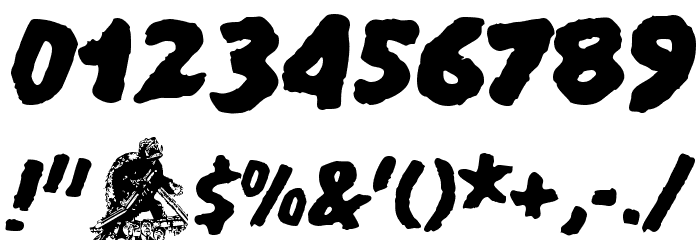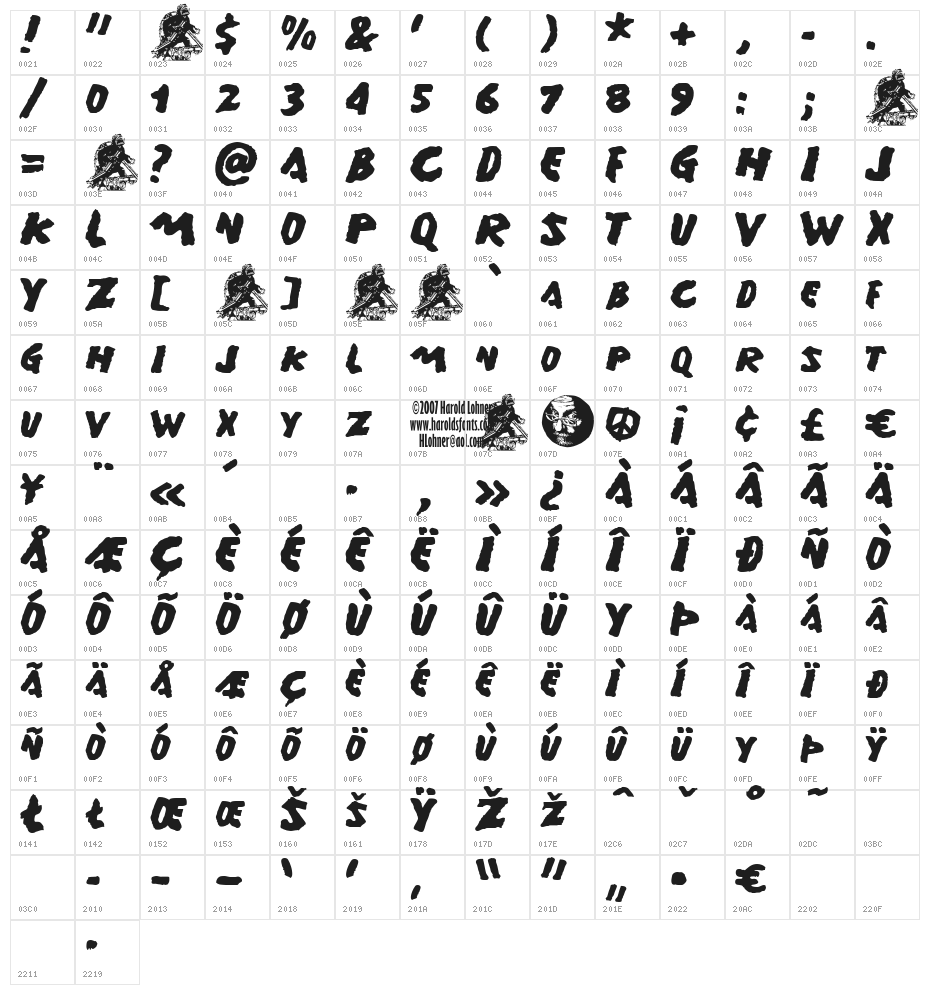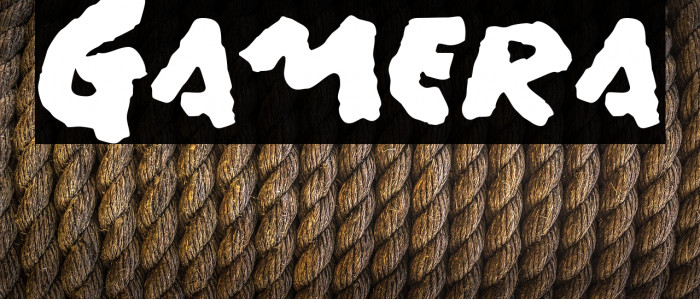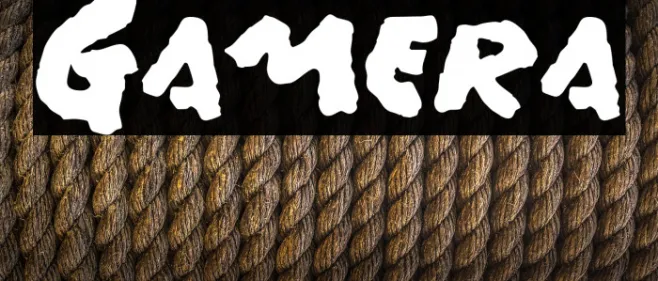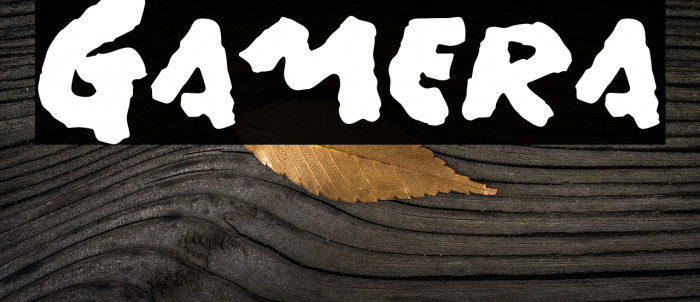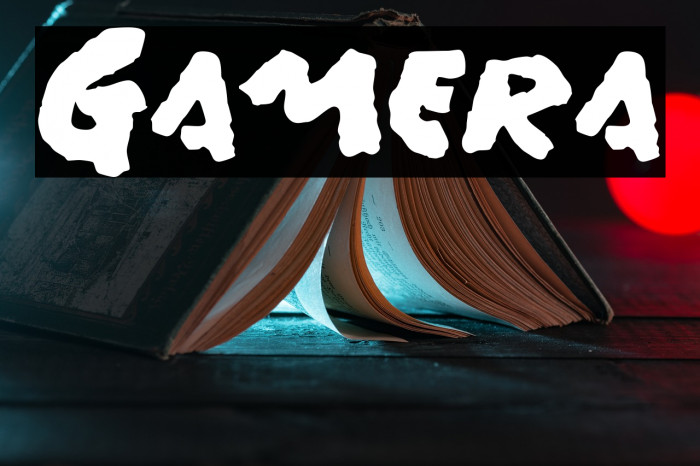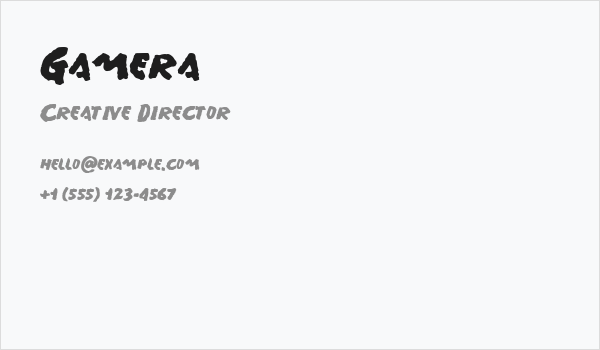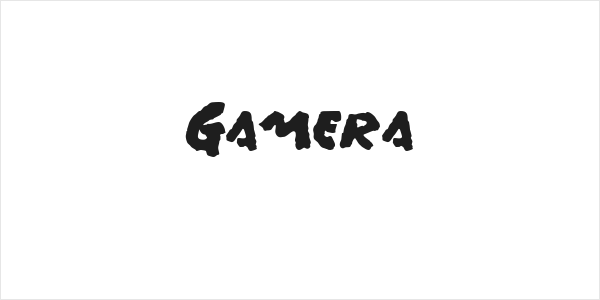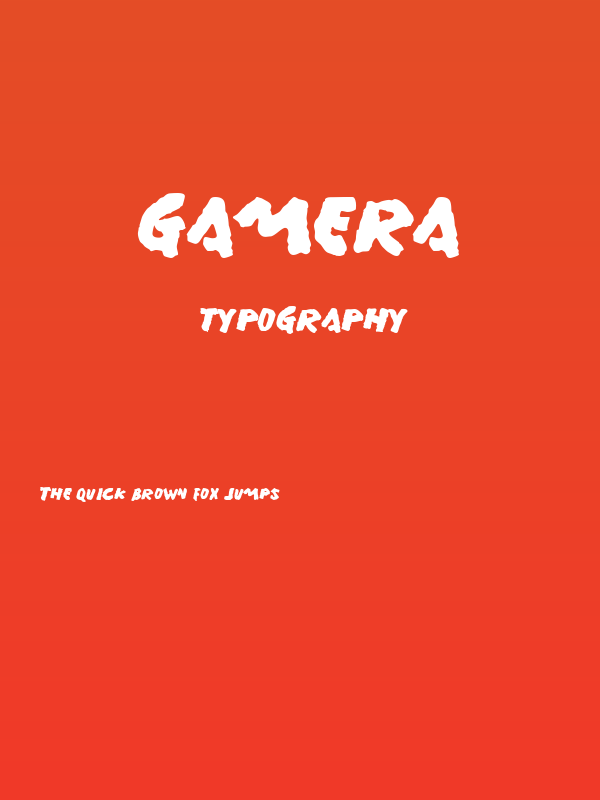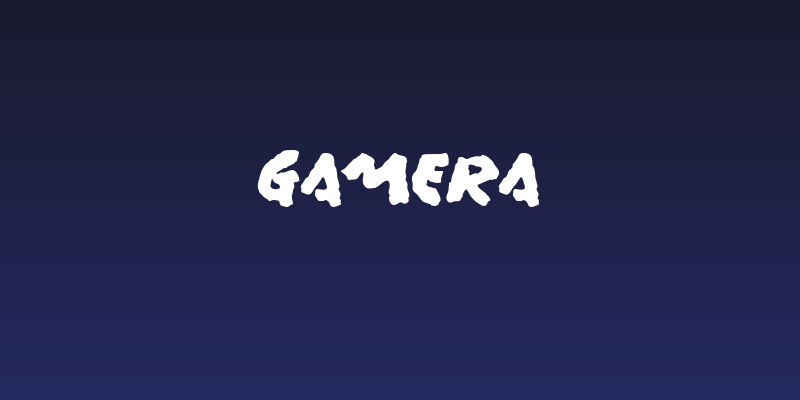
Gamera Font
Gamera Description
This font features a bold, dynamic style with a hand-painted appearance. The characters are thick and expressive, with irregular edges that give a sense of movement and energy. The uppercase and lowercase letters maintain a consistent style, while the numbers and special characters complement the overall design. The font's artistic flair makes it stand out, suitable for projects that require a strong visual impact. Its unique style is reminiscent of brush strokes, adding a creative and informal touch to any text.
| Proposed Projects | Ideal for posters, album covers, branding, and creative projects that require a bold, artistic touch. |